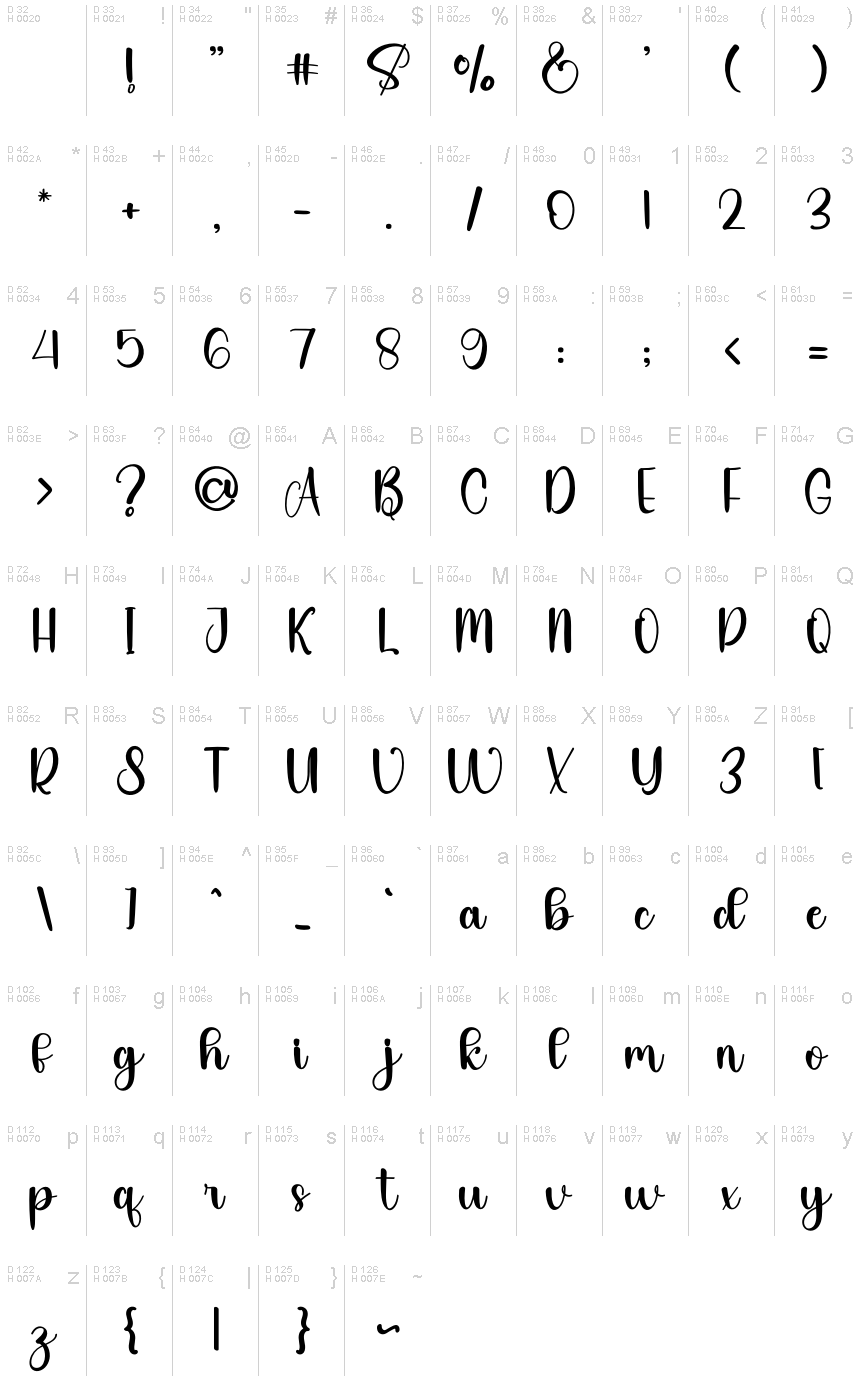
Stock
Stock is a captivating handwritten font crafted by PiPi Creative. Its sweeping, organic strokes exude a sense of artistry and effortless elegance.
The fluid connections between letters create a harmonious, cohesive aesthetic that evokes a touch of whimsy and personality. This font is well-suited for a wide range of design applications, from logos and branding to stationery and editorial layouts.
Its versatile nature allows it to seamlessly blend with both modern and vintage-inspired aesthetics, making it a valuable asset for designers seeking to add a distinctive, handcrafted touch to their work.